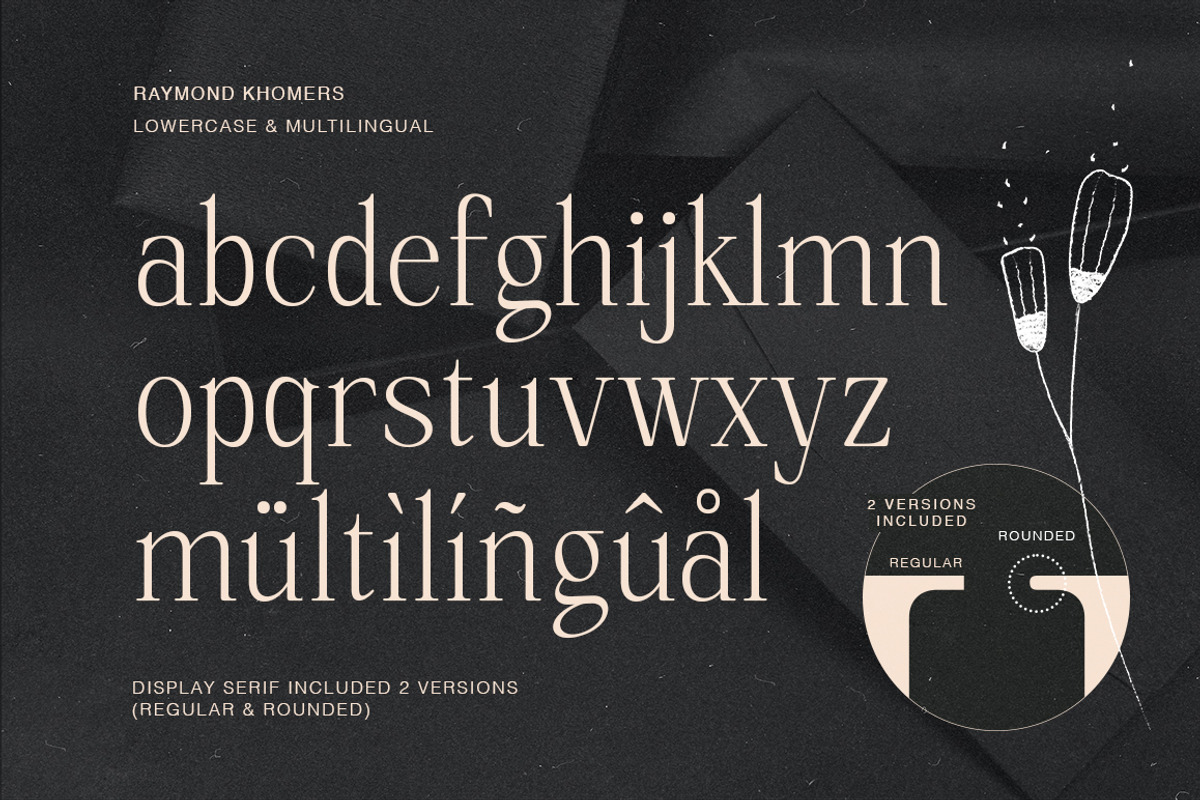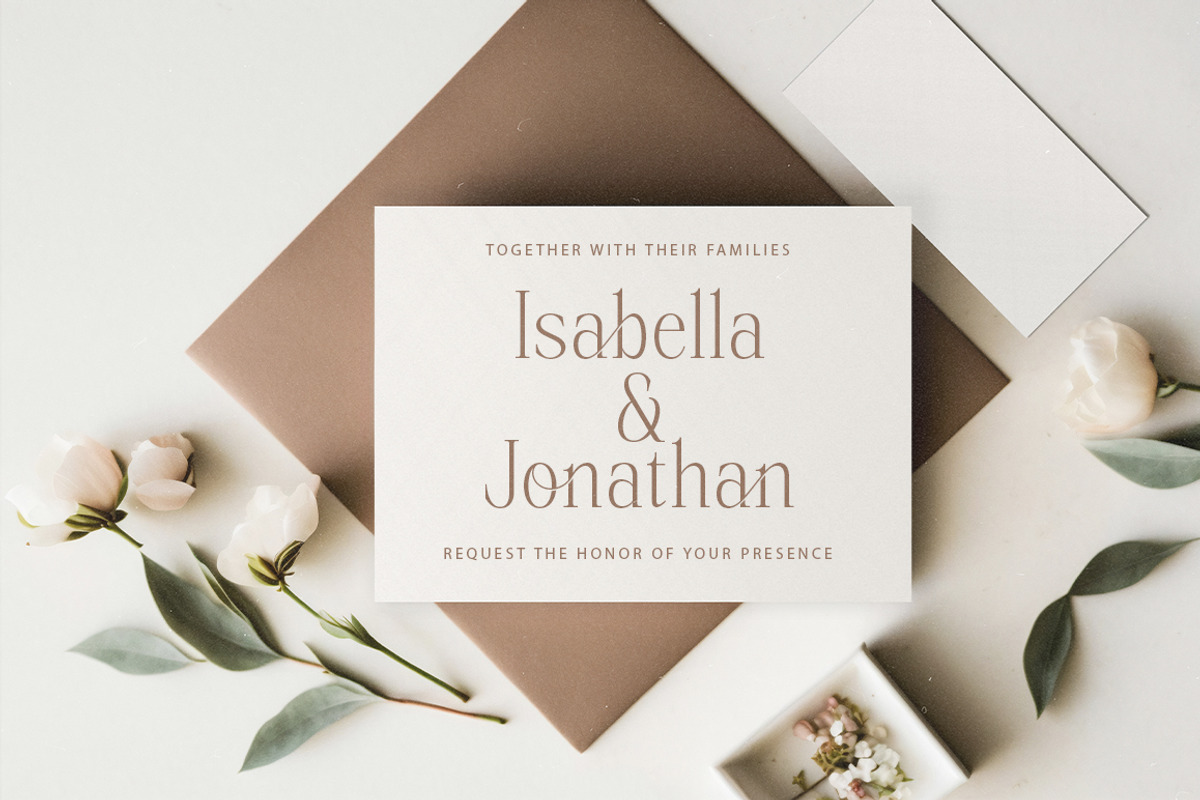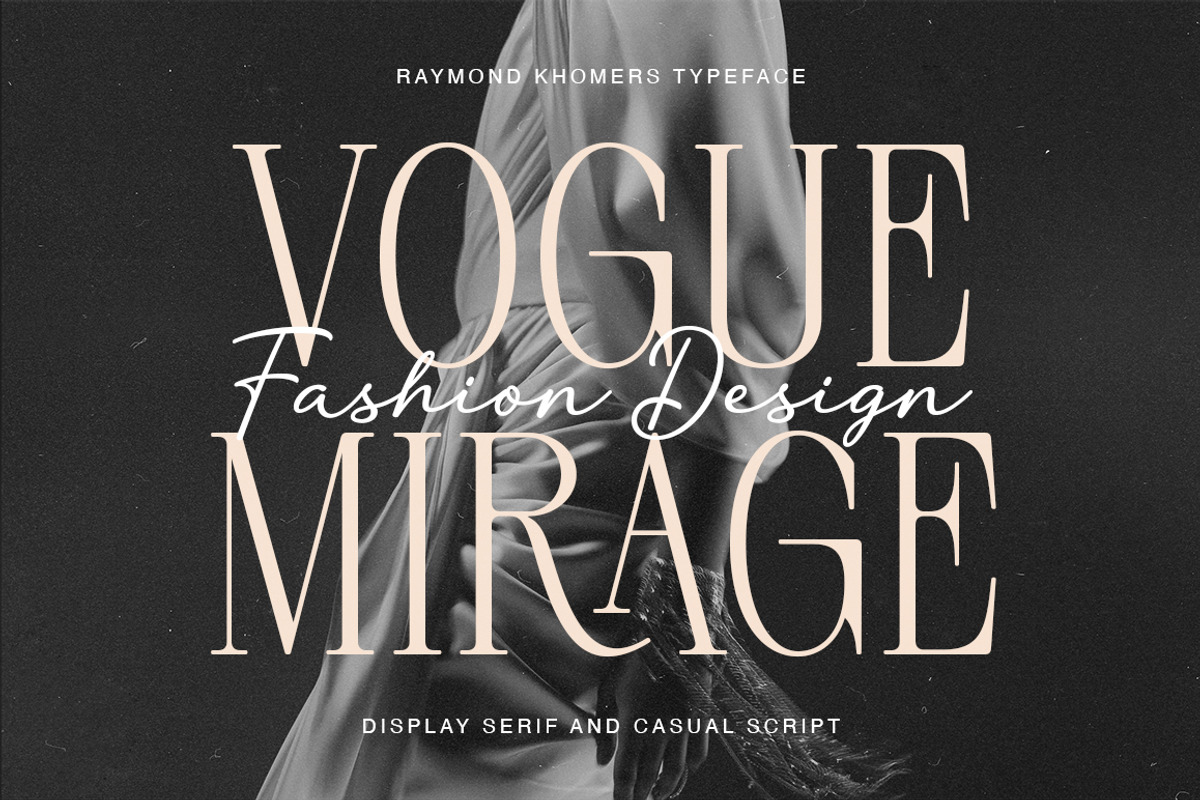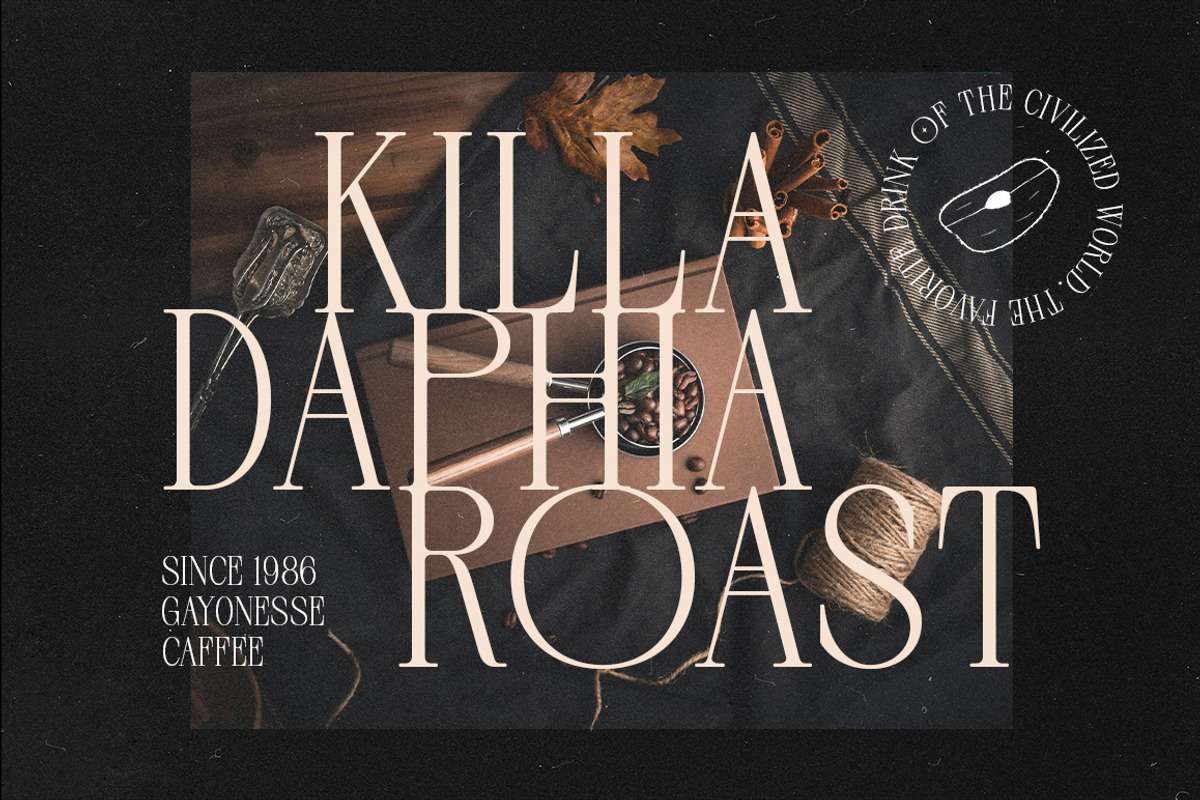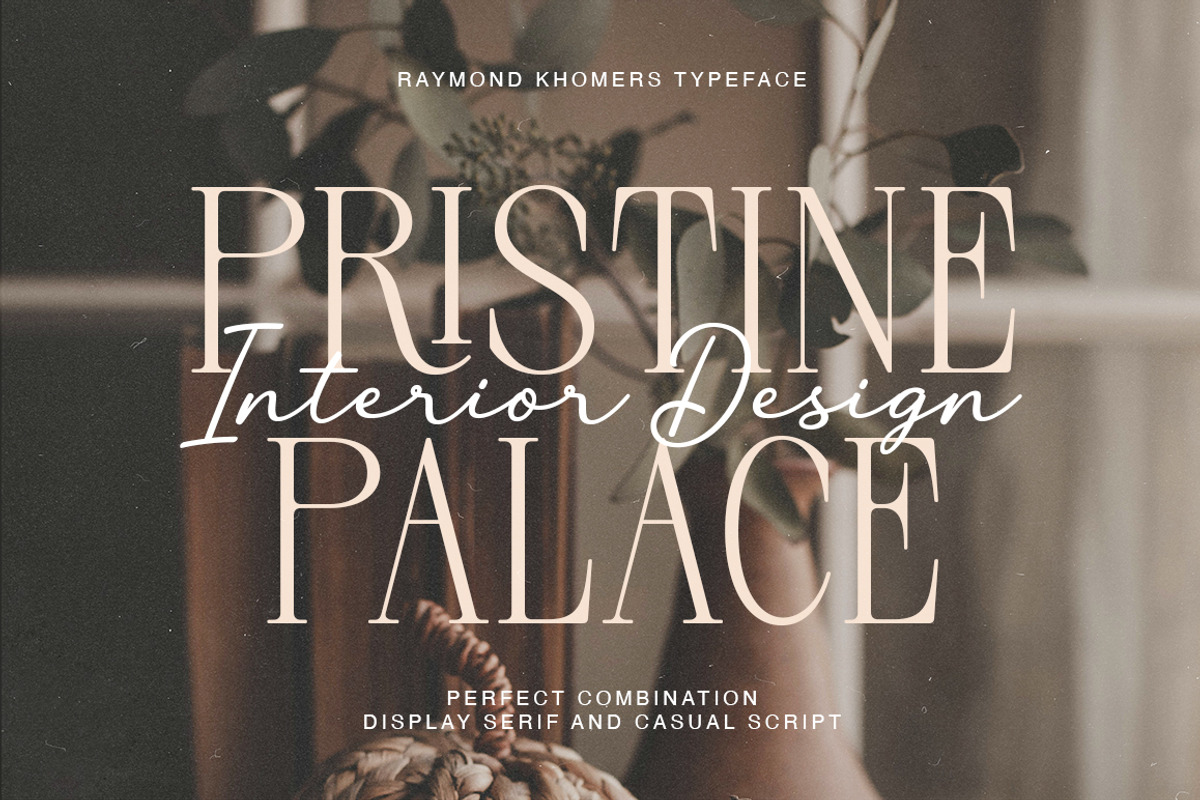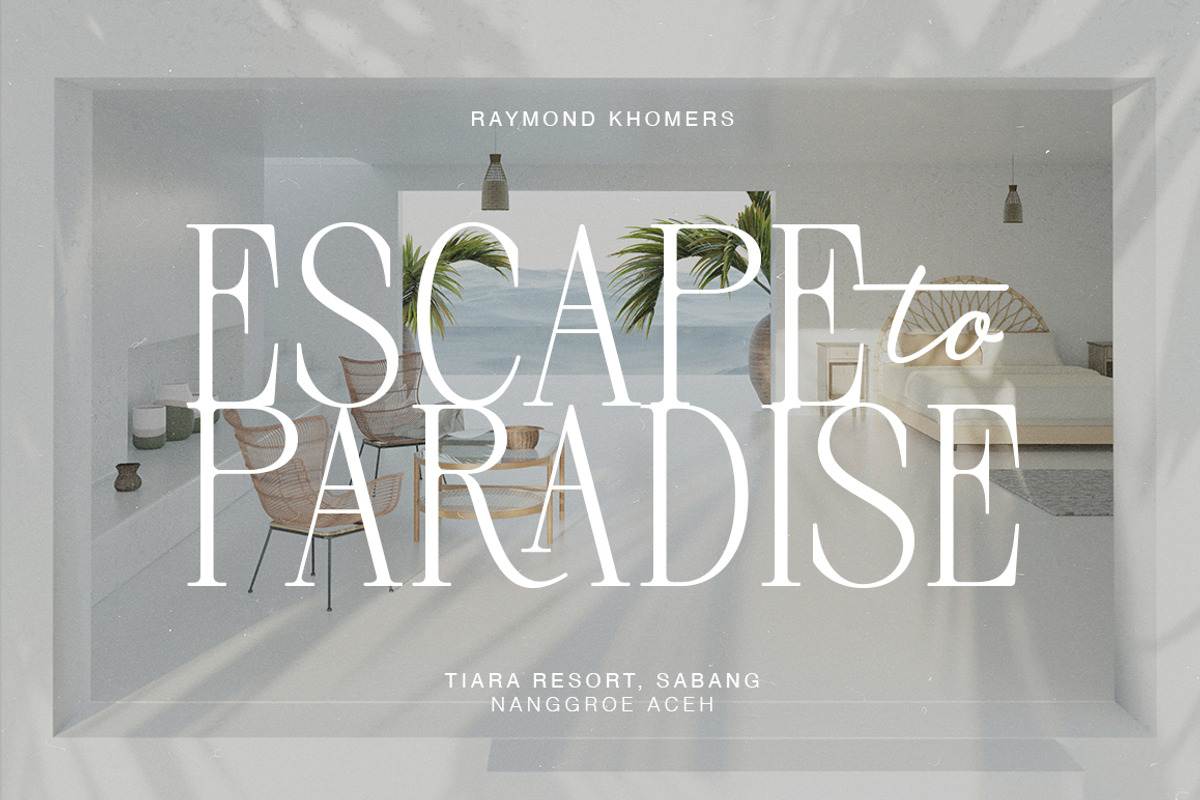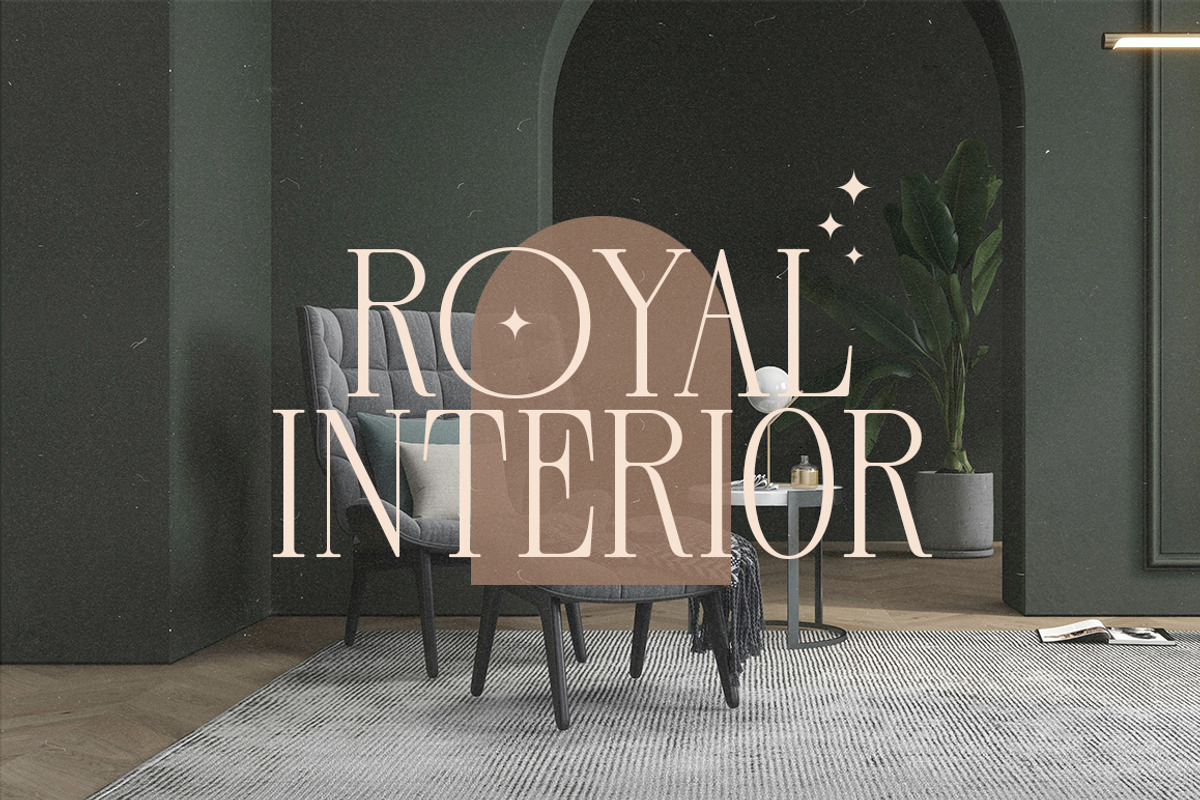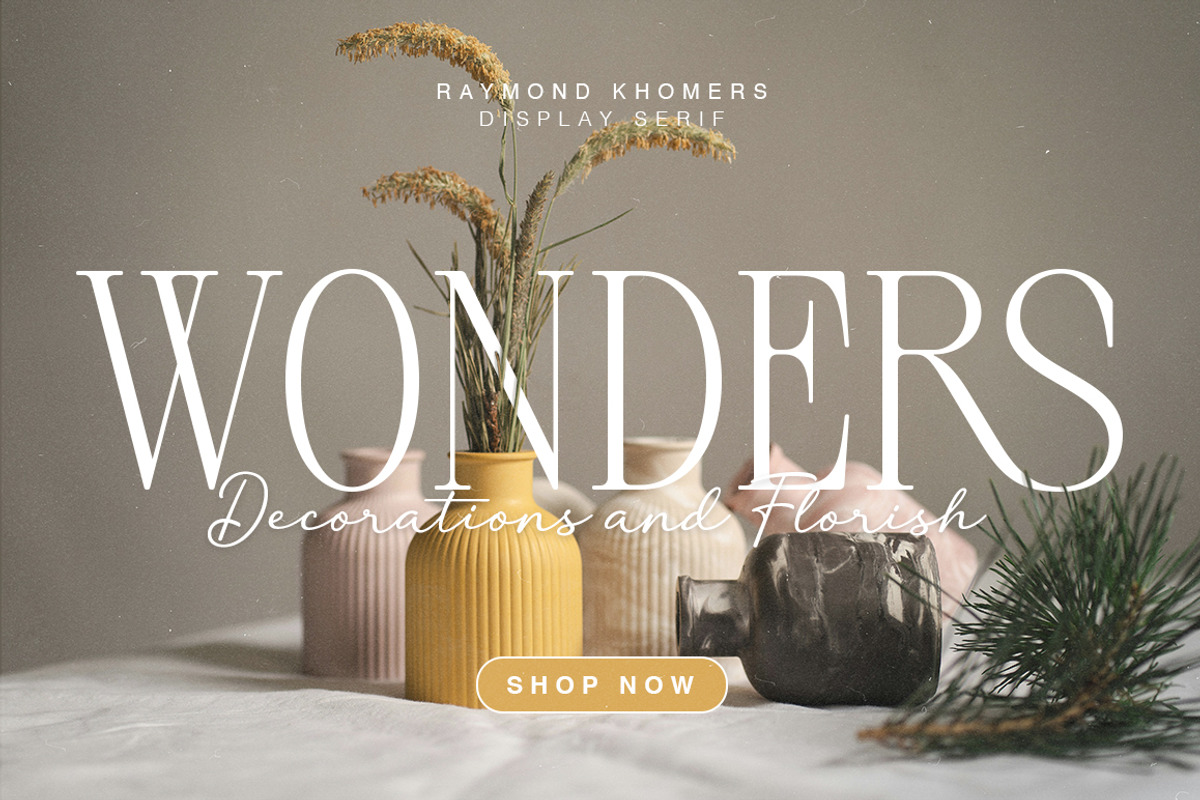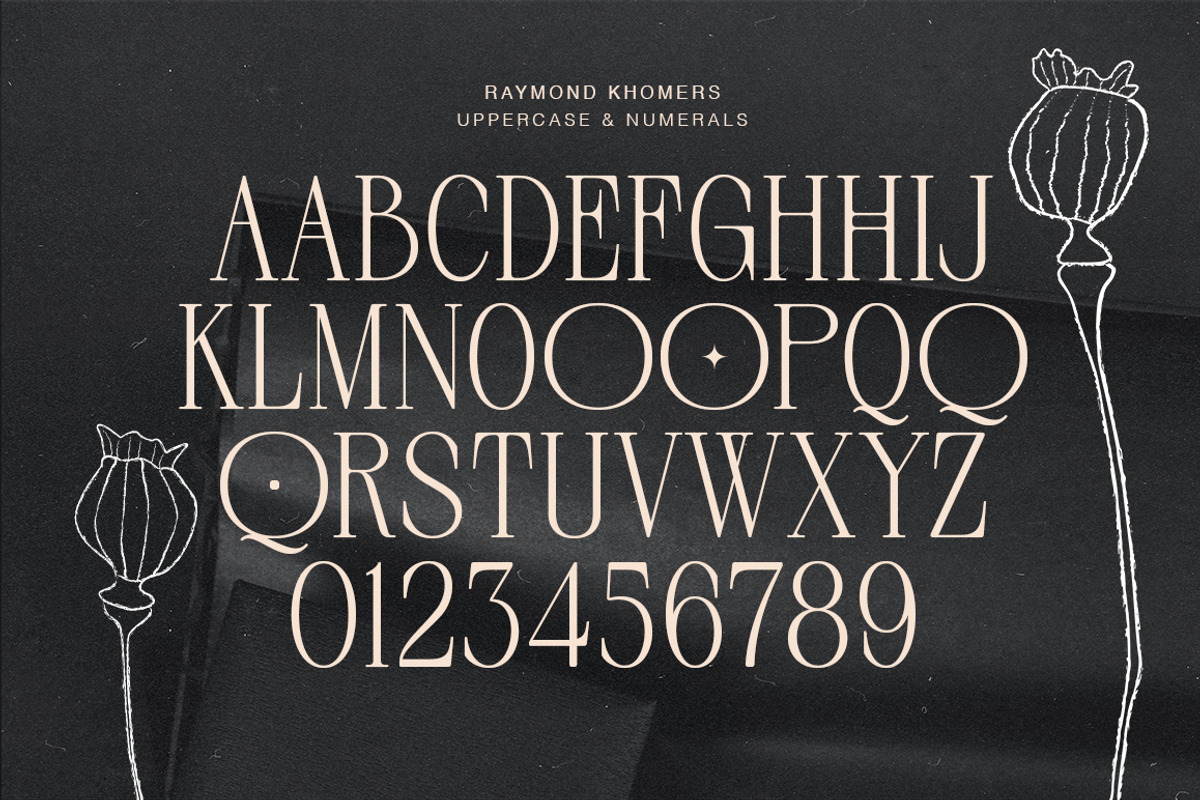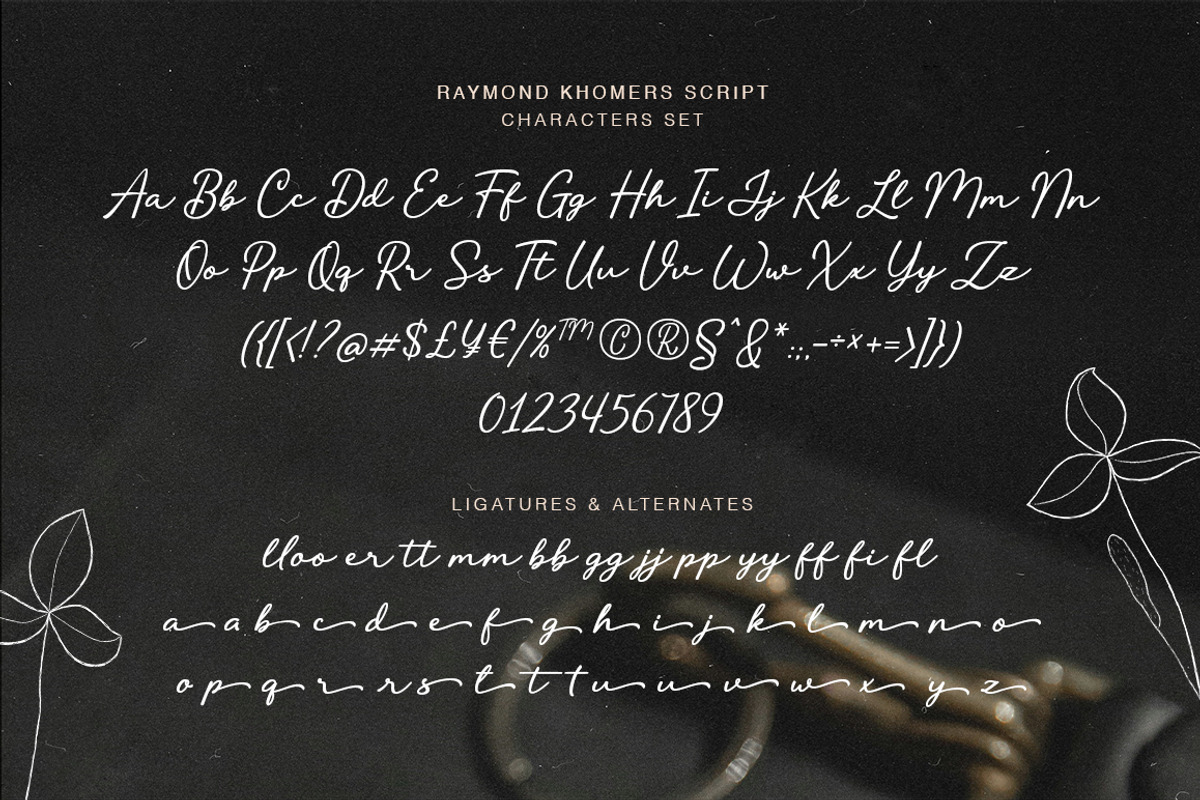
Raymond Khomers
Raymond Khomers is an elegant display serif with a unique feminine style and beautiful casual script for perfect combination. This beautiful collection will instantly add class to all of your design projects. It is the perfect branding font and will help you to easily create brand logos, quote, wedding designs, and all other commercial projects.